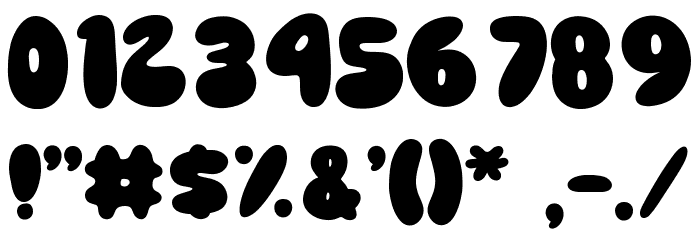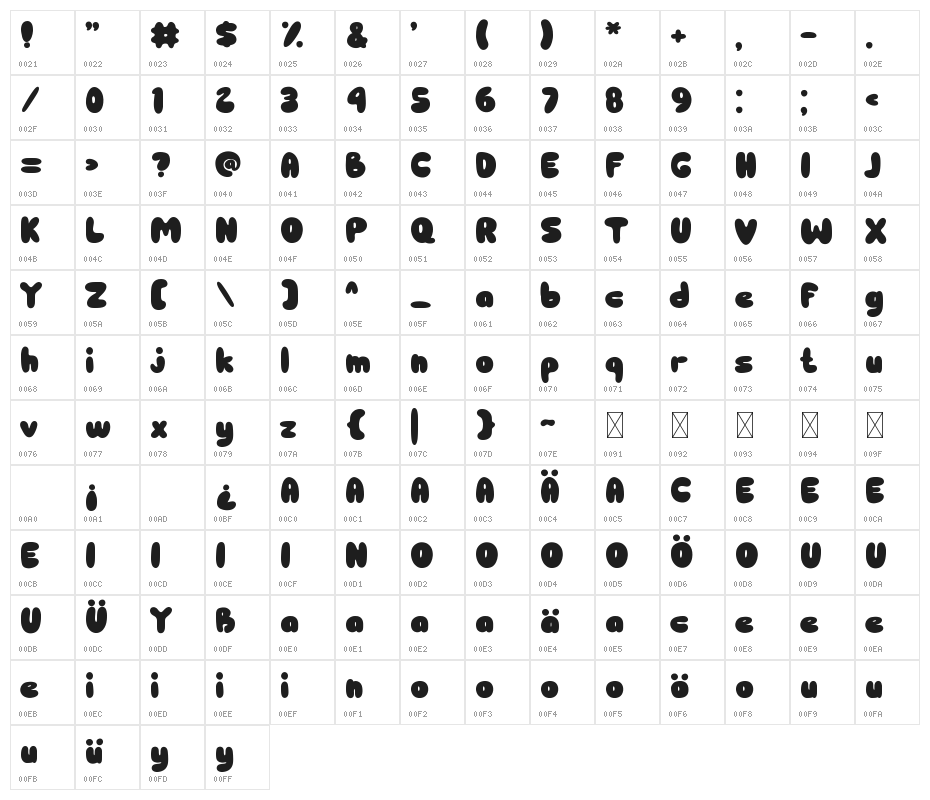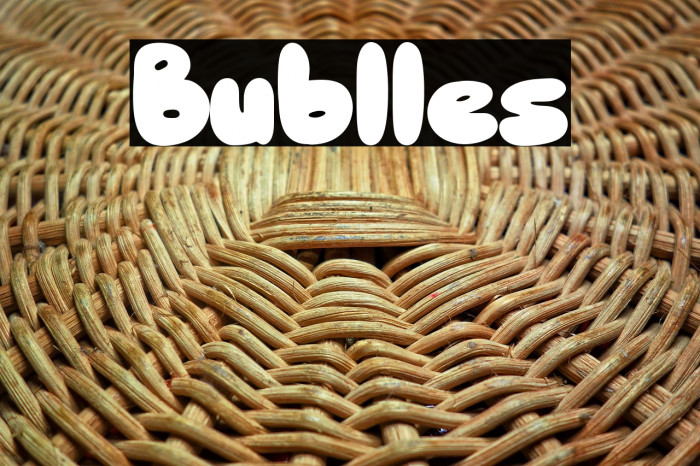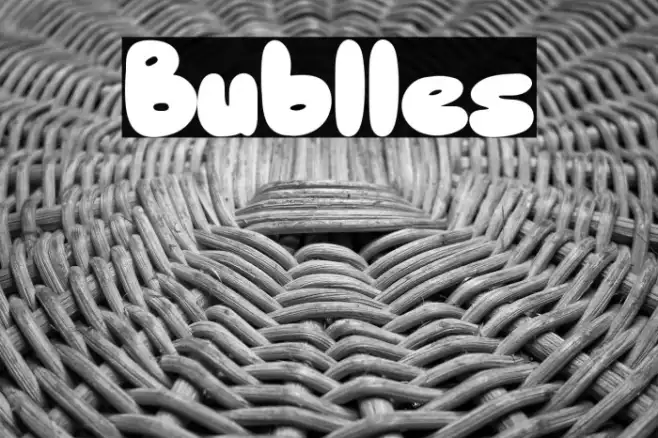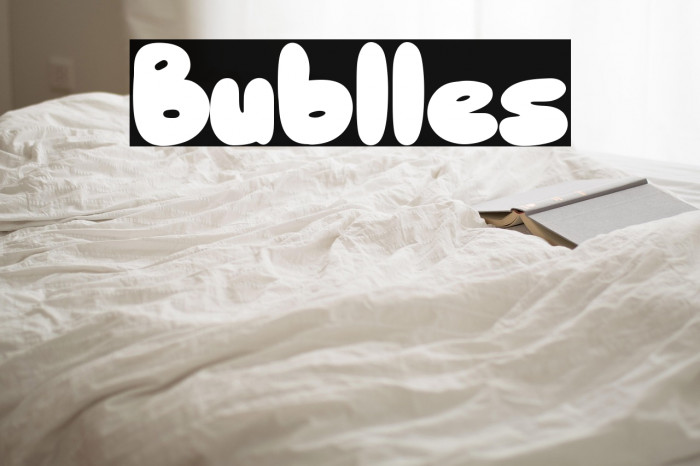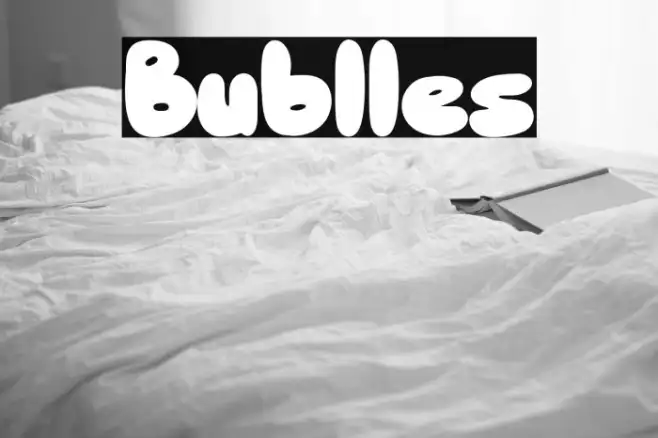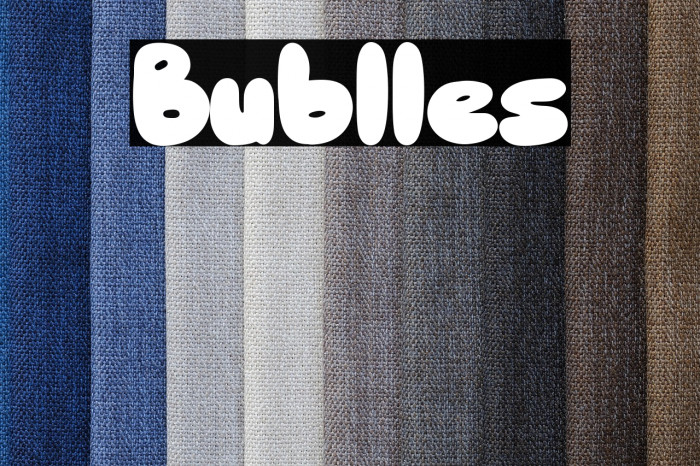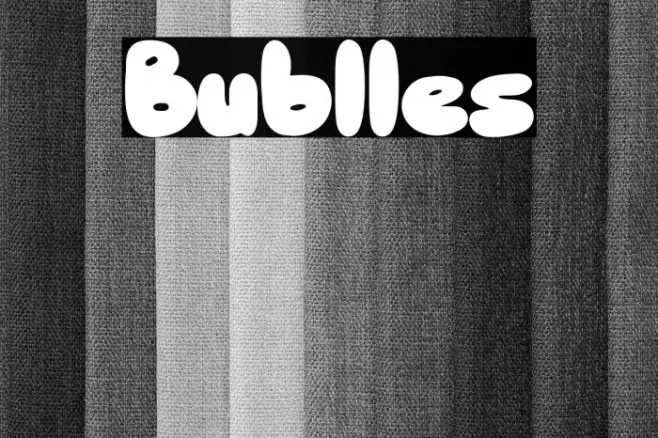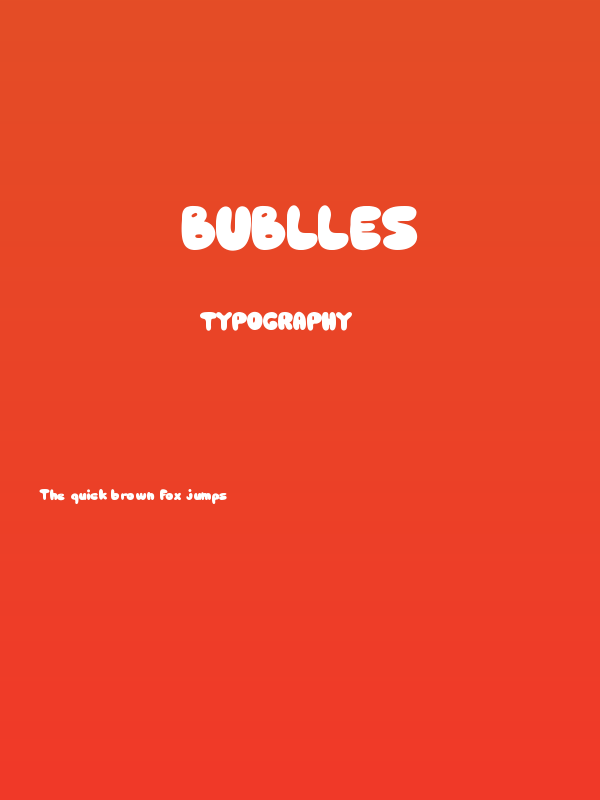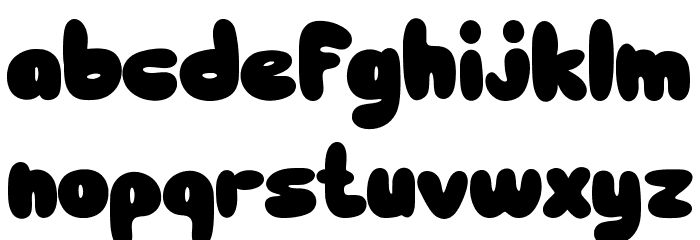
Bublles Font
Bublles Description
This playful and bold typeface features rounded, bubble-like characters that convey a sense of fun and whimsy. The letters are thick and uniform, with smooth curves and a consistent stroke width that gives them a cartoonish appearance. The font maintains a cohesive look across both uppercase and lowercase letters, as well as numbers and special characters. Its exaggerated, soft edges and lack of sharp angles contribute to its friendly and approachable style, making it ideal for designs that aim to be eye-catching and informal.
| Proposed Projects | Ideal for children's books, playful branding, party invitations, and casual posters. |